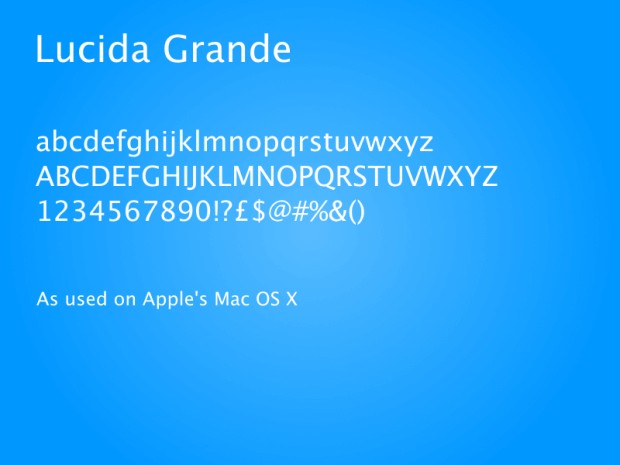
Introducing Lucida Grande Bold Font that was the combined hard work of Charles Bigelow and Kris Holmes. This is the humanist sans-serif typeface.
This typeface was modified by Apple and Bigelow & Holmes and rereleased in 1989. This typeface is being used in the macOS consumer interface along with frozen font in the period 1999 to 2014.
The styling of this typeface is similar to the Lucida Sans and Lucida Sans Unicode. As in the Sans Unicode, this typeface used most of the general characters that are defined in version 2.0 of the Unicode popular.
Three weights of Lucida Grande: every day, formidable, and black, in three patterns: Roman, italic, and indirect, are the combination of marquee fonts and they have been the topmost MAcOs fonts.